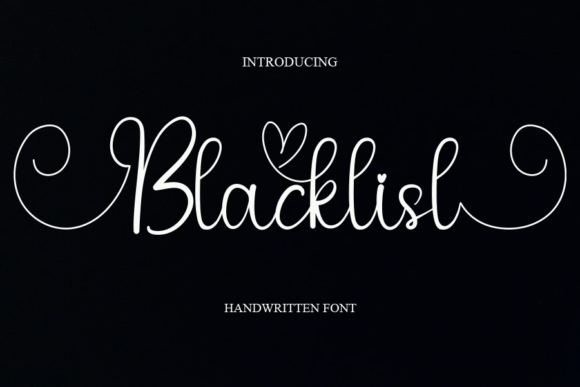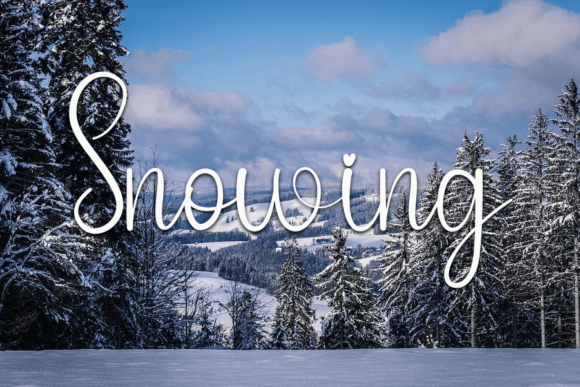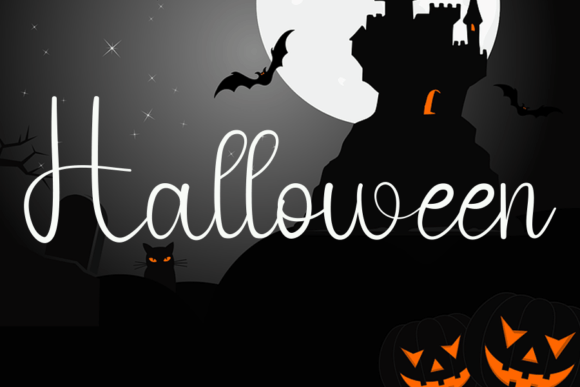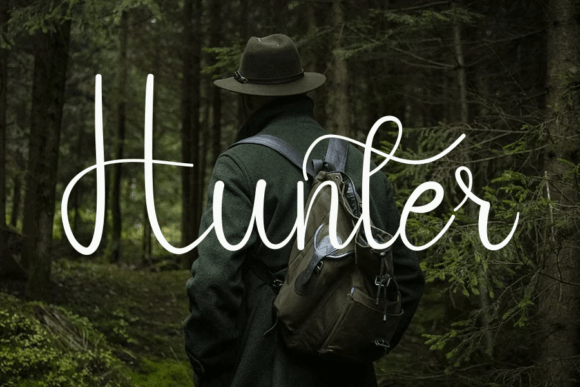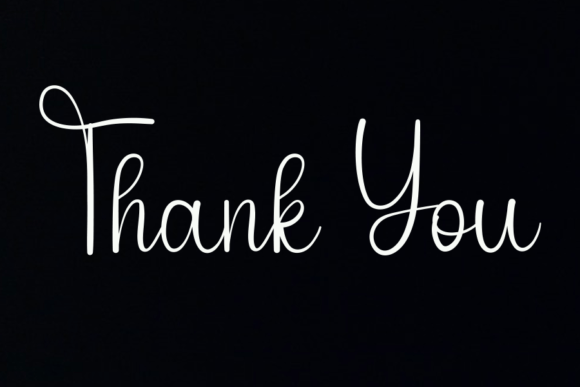
About Blacklist Font
“Blacklist” is more than just a font; it’s a romantic typeface that takes sweetness to a whole new level by incorporating hearts as dots, charmingly adorning characters like “i” and “j”. With this unique feature, your messages will become irresistibly super cute. “Blacklist” is perfect for a variety of projects, including posters, greeting cards, t-shirts, branding materials, quotes, and any other amazing endeavors you are working on.
The inclusion of hearts as dots adds a delightful and romantic touch to the font. Imagine using “Blacklist” in your posters, where each dot contributes to the overall charm, creating a visually appealing and heartwarming design.
For greeting cards, “Blacklist” becomes a key element in expressing love and sweetness. The font’s unique design elevates the romantic sentiment, making it an ideal choice for conveying heartfelt messages.
In the realm of branding materials, “Blacklist” stands out as a font that brings a playful and romantic vibe. Its versatility makes it suitable for a range of applications, contributing to a memorable and engaging brand identity.
For t-shirts and apparel, “Blacklist” becomes a standout choice that adds a cute and charming factor. The hearts incorporated into the font make it a delightful option for creating designs that resonate with a romantic and lighthearted audience.
Whether you’re working on quotes or any other creative project, “Blacklist” serves as a font that infuses cuteness into your messages. Its romantic and unique design makes it an exciting addition to your toolkit.
In essence, “Blacklist” is more than just a font; it’s a design asset that brings romance and cuteness to your projects. Let “Blacklist” be the typeface that adds a special touch to your posters, cards, apparel, and more, making them truly heartwarming and delightful.